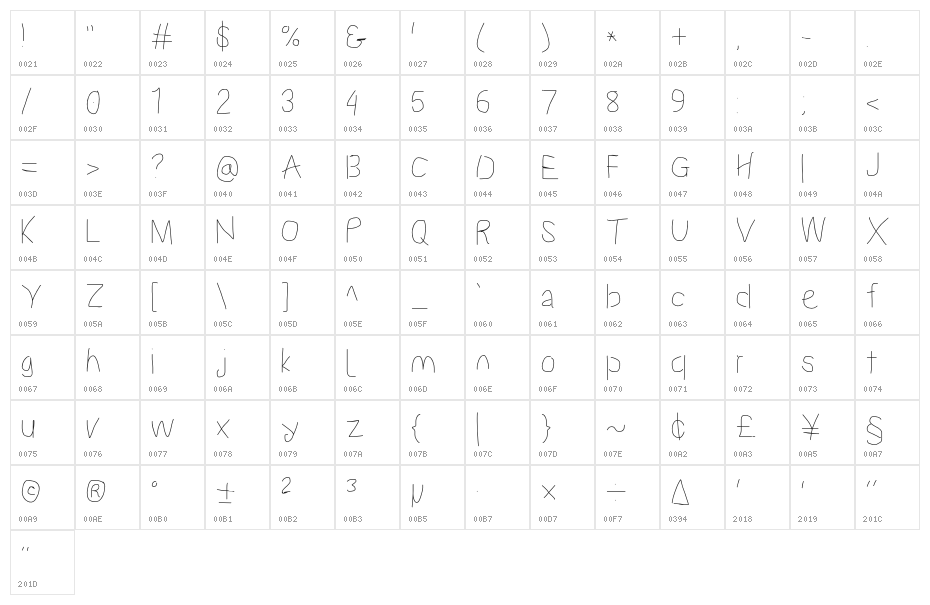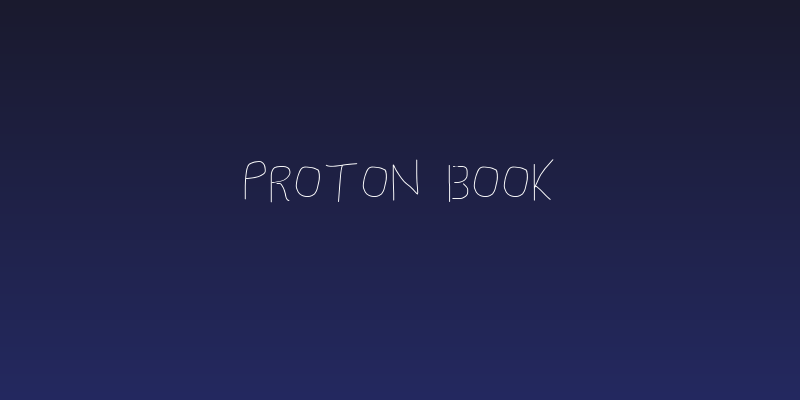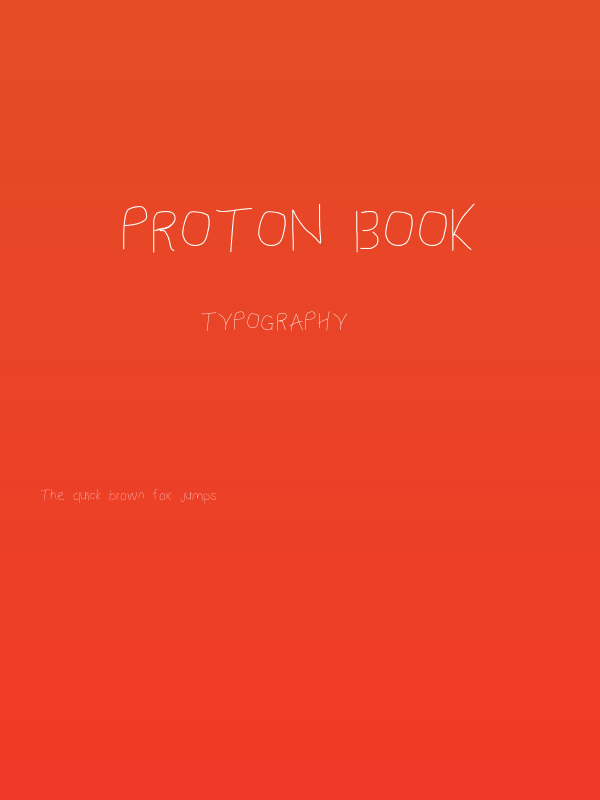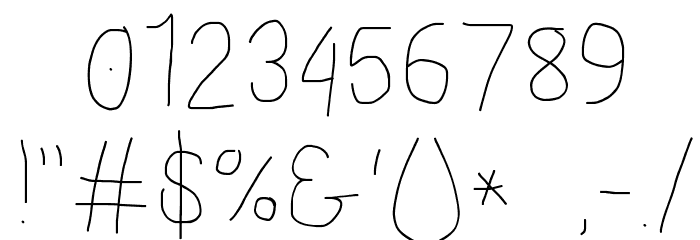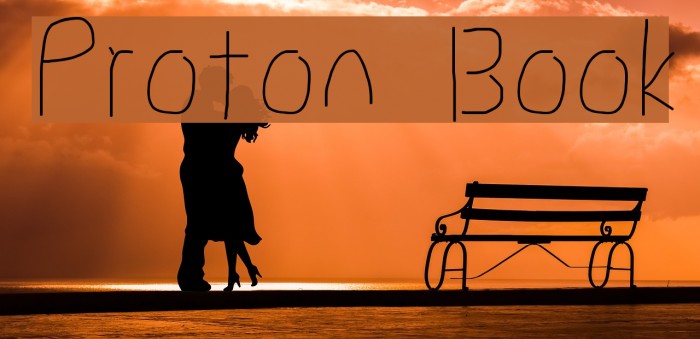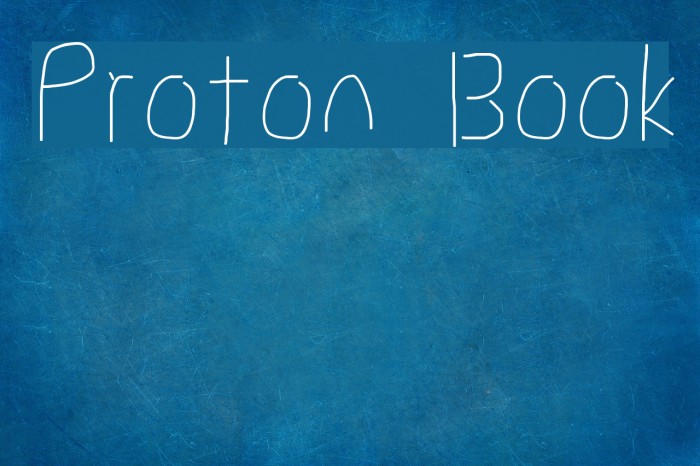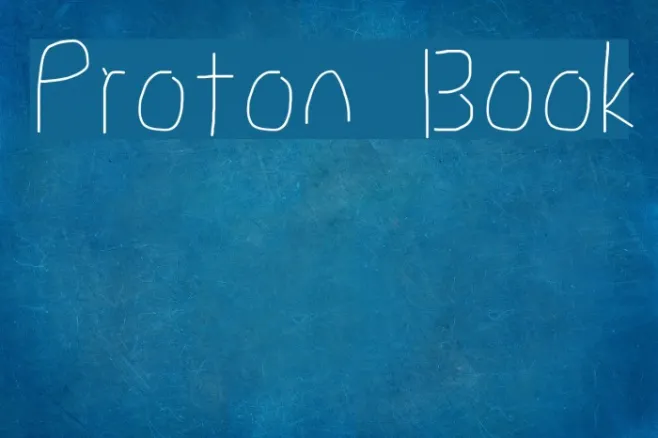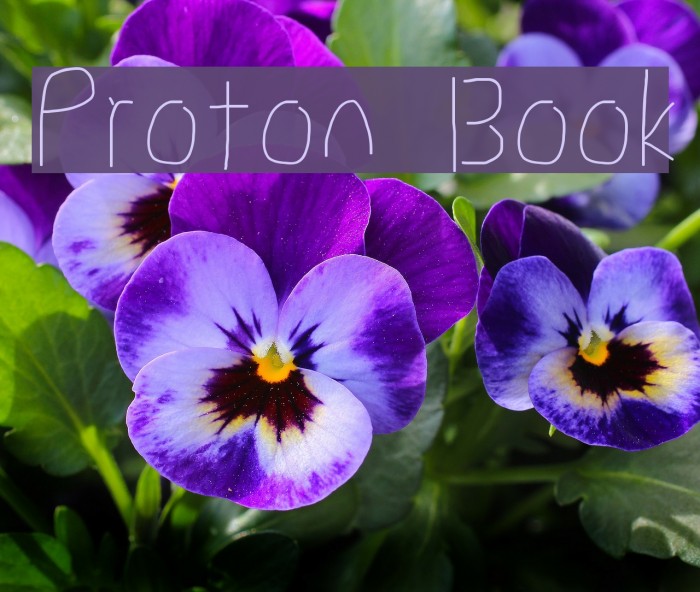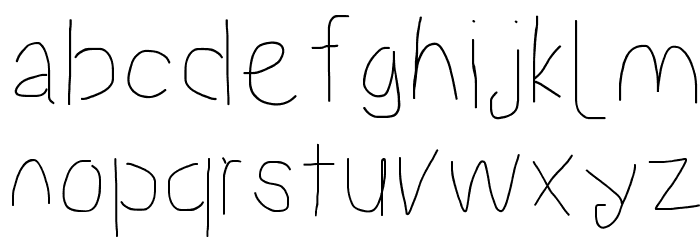
Proton Book Font
Proton Book Description
This font features a playful and whimsical handwritten style, characterized by its thin, uneven strokes and slightly irregular letterforms. The characters have a casual and informal appearance, with a sense of spontaneity and creativity. The uppercase letters are tall and narrow, while the lowercase letters maintain a consistent height with a slight slant, adding to the font's dynamic feel. The numerals are similarly styled, with a quirky charm that complements the overall aesthetic. Special characters are integrated seamlessly, maintaining the font's unique personality.